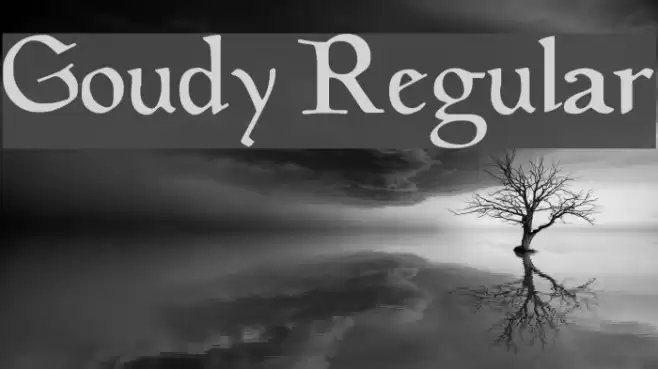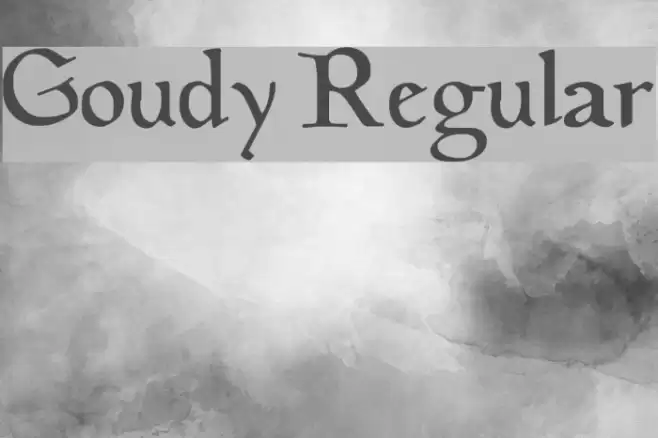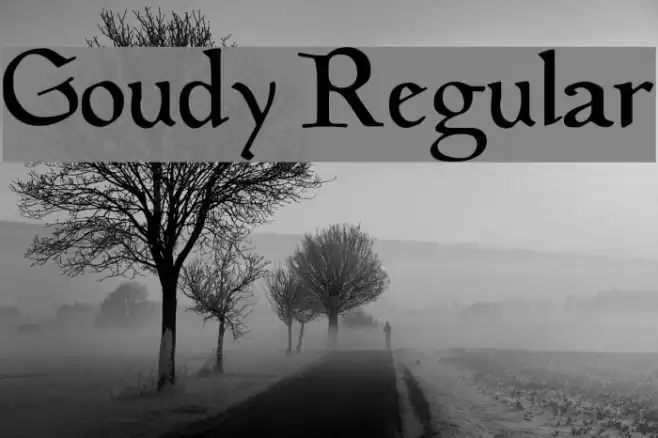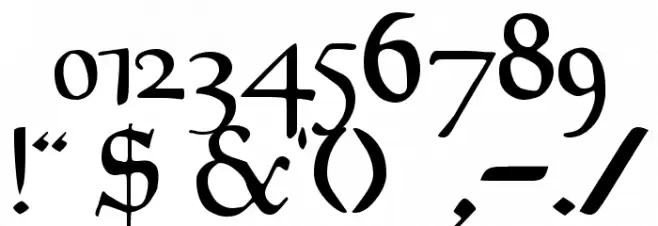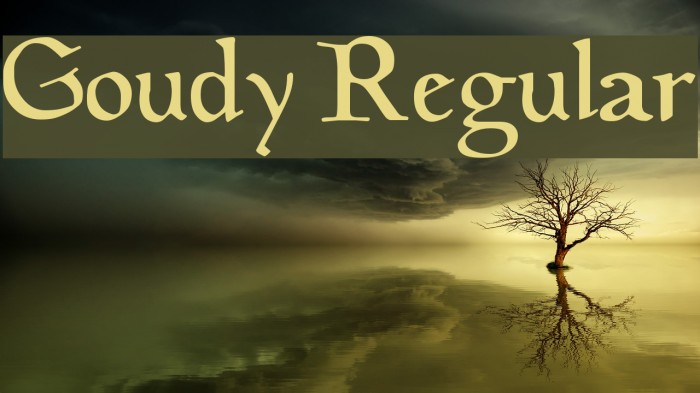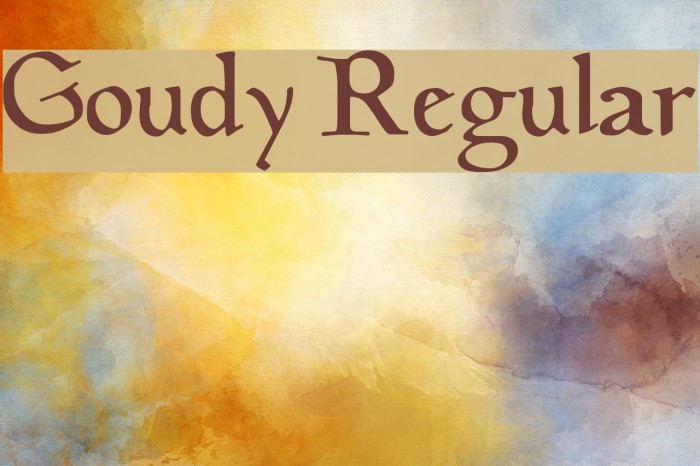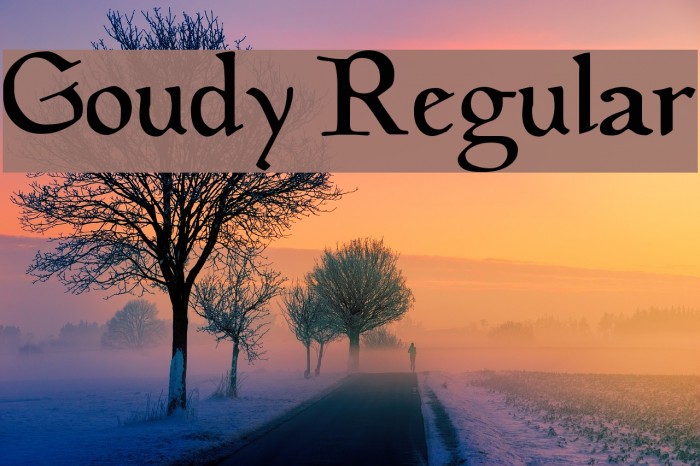
Goudy Regular Font
Goudy Regular Description
This font exhibits a classic and elegant style with a distinct calligraphic influence. The uppercase letters are characterized by their tall, narrow forms and sharp serifs, giving them a refined and sophisticated appearance. The lowercase letters maintain a consistent flow, with smooth curves and a slight slant that adds a touch of dynamism. The numerals are uniquely styled, with varying stroke thicknesses that enhance their readability. Special characters are thoughtfully designed to complement the overall aesthetic, making this font versatile for various applications.
A classic, calligraphic font with elegant serifs and smooth curves from Formal fonts.
- Proposed Projects: Ideal for projects requiring a touch of sophistication, such as wedding invitations, formal event programs, or luxury brand logos.
- Overall Style: Classic
- Use Case: Headlines, Logos, Invitations